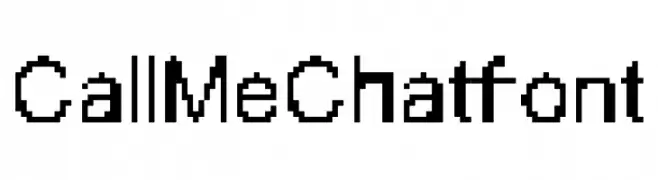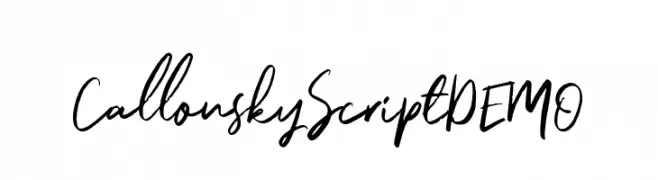
A pixelated, retro-style font with a blocky, geometric design.
A graceful script font with flowing, interconnected letters and ornate uppercase characters.
An elegant script font with flowing, cursive letters and decorative flourishes.
A bold, handwritten font with a dynamic and energetic style.
A flowing, cursive font with elegant, connected characters and a handwritten style.
A dynamic, handwritten script font with fluid strokes and expressive style.
A delicate, elegant script font with thin, flowing strokes and a handwritten style.
A fluid, elegant script font with a natural handwritten style.
A flowing, cursive font with elegant, sweeping lines and a handwritten appearance.